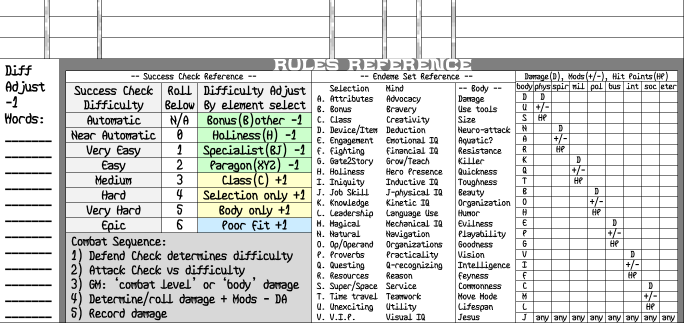
WHY IS THERE A DOT TO THE RIGHT OF THE “X” AND “x”?
There is a dot to the right of the X because this creates a shape that looks like a bird when the X is followed by an number of other letters: EXTRA for example
It creates something that looks like a bird when Xylem is typed into the preview...
I love the look of the glyphs, very earthy. The white space creates very intriguing 'life forms' :)
@Aeolien, @Se7enty-Se7en, Thanks. I like playing with figure and ground. Xylem creates a bird. Extra creates a bird with wings. I also see a jelly fish.
I finally found a use for Bellunker. Here Bellunker is used as the label for my rules reference section on my RPG character sheet (I use my Friendly Geek semibold font for the general text).
very cool and unique design.